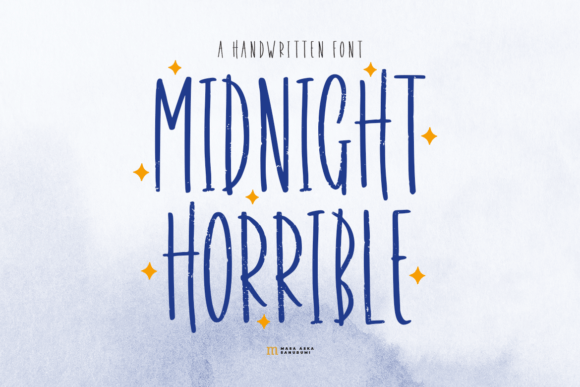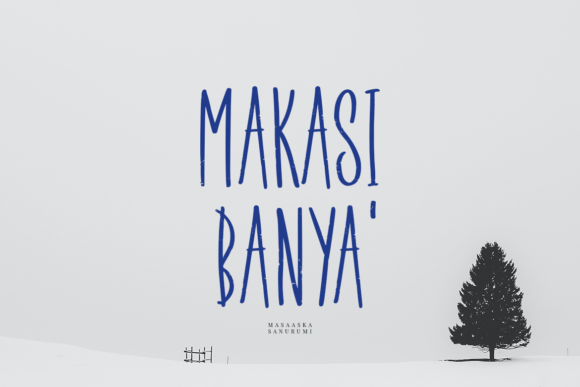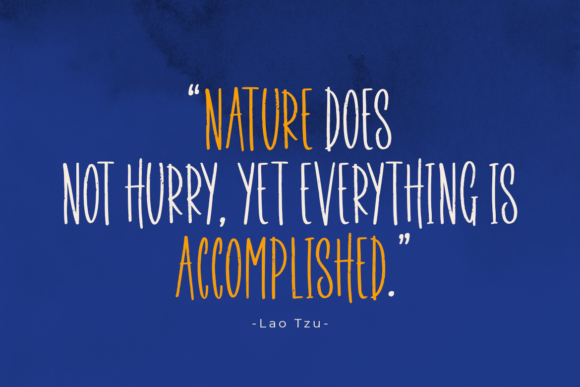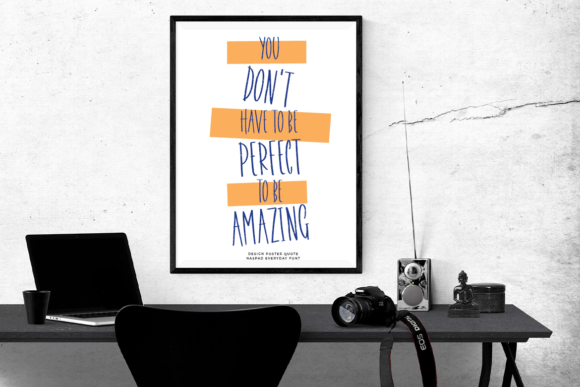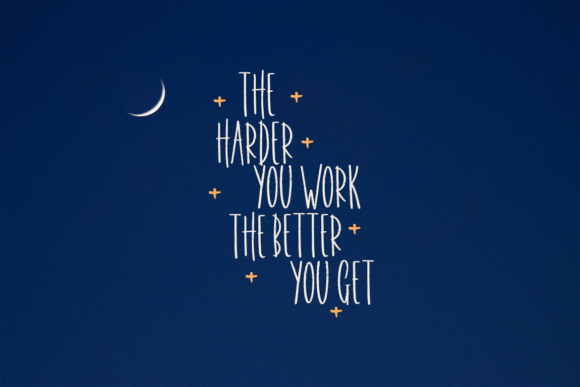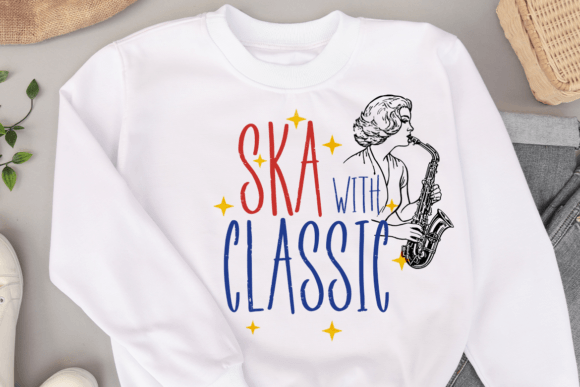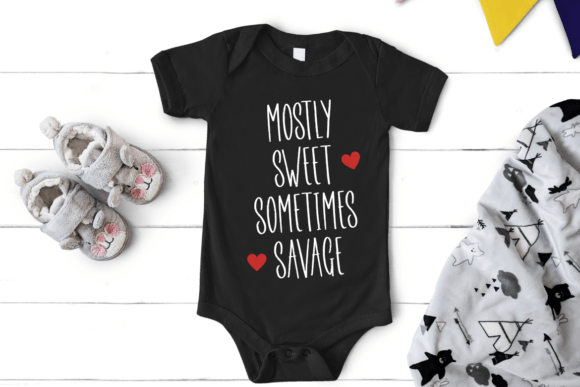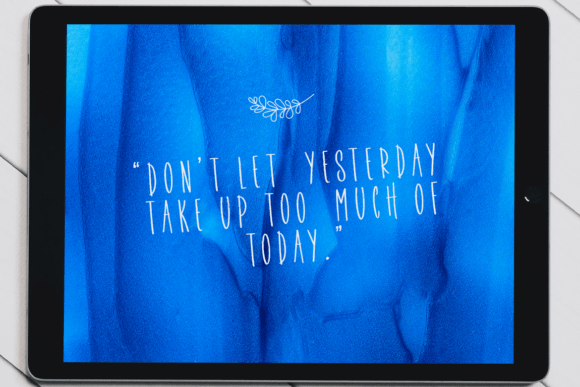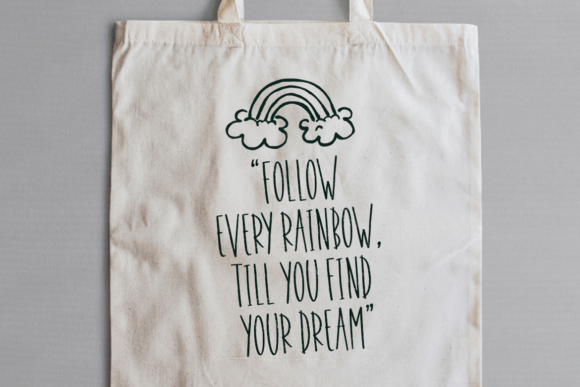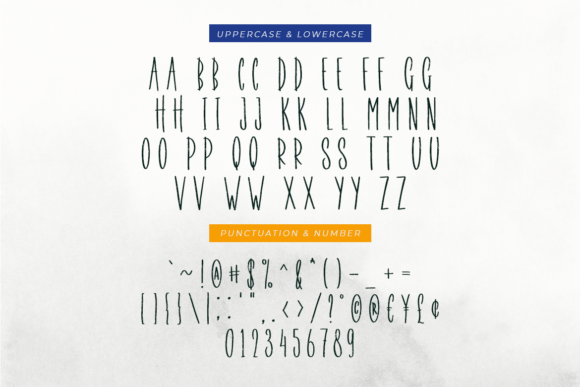
Midnight Horrible Font
About Midnight Horrible Font
Midnight Horrible Font is a quirky, playful handwritten typeface with a bold personality. It’s perfect for designers who want to inject fun and creativity into their work. With its expressive curves and slightly eerie charm, this font fits especially well in seasonal projects—particularly those with Halloween vibes. However, its versatility allows it to shine in many other contexts too.
Versatile and Eye-Catching
Whether you’re creating greeting cards, posters, or social media graphics, Midnight Horrible Font brings a fresh energy to your layouts. Because it’s both friendly and slightly spooky, it can easily adapt to fun event announcements, children’s party invites, or promotional designs for seasonal collections.
Moreover, this font keeps your design looking clean while still being expressive. It avoids the clutter often found in overly stylized typefaces, making it easier to pair with other fonts and visuals.
Best Uses for Midnight Horrible Font
This font is a great fit for:
• Greeting cards and party invitations
• Spooky Halloween posters and flyers
• Craft and DIY printables
• Book covers and illustrations
• Headlines for blogs and websites
• Children’s event materials
• Stickers, mugs, and custom merchandise
Add a Playful Touch to Your Work